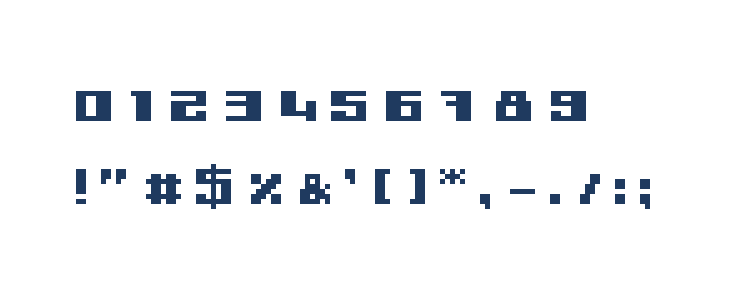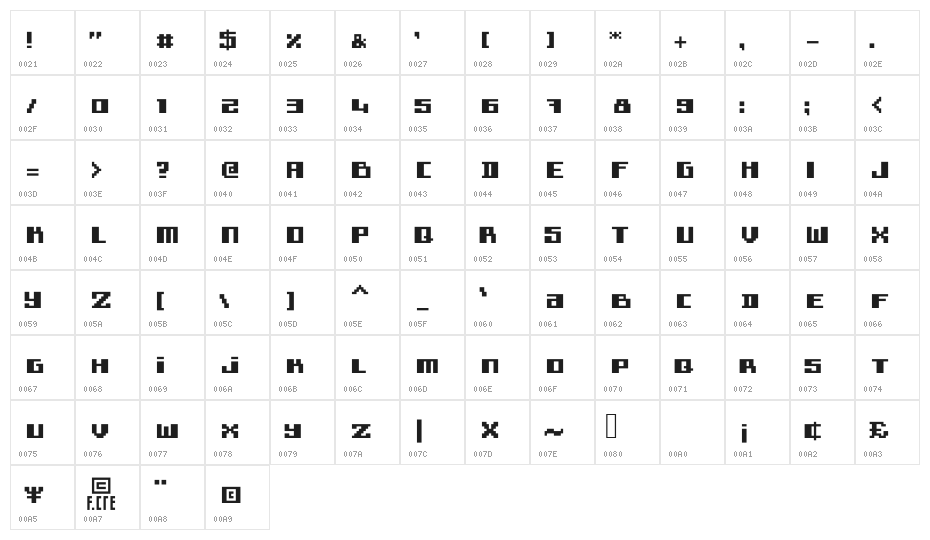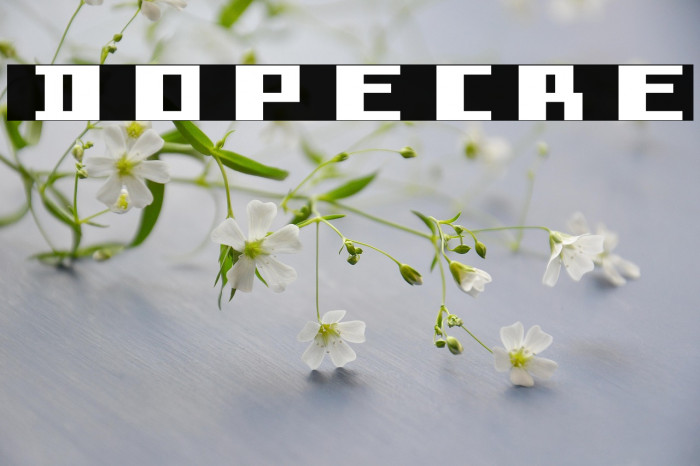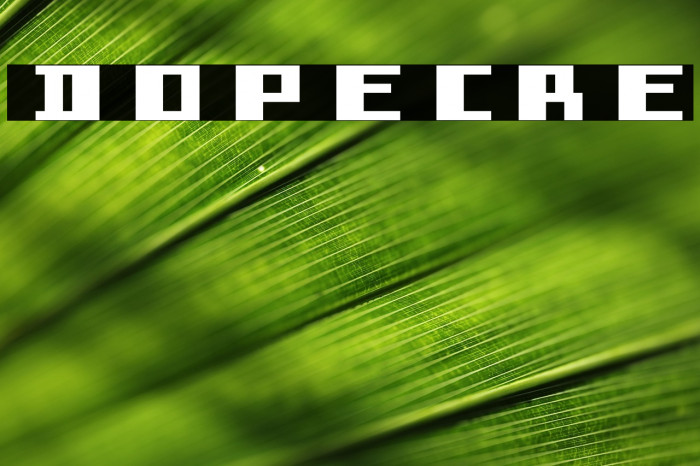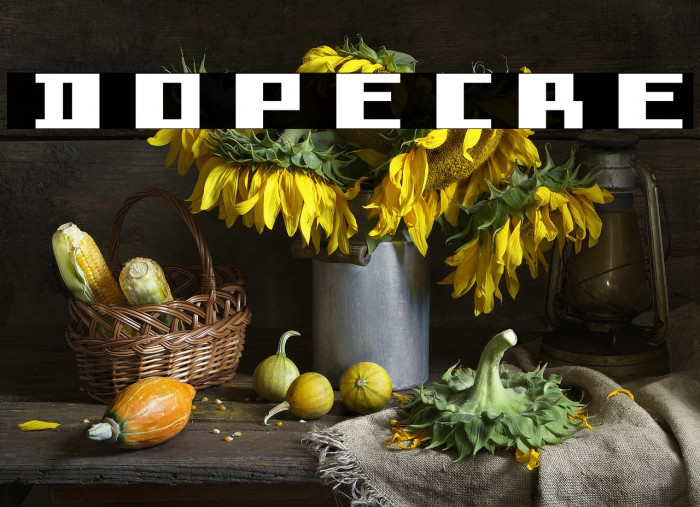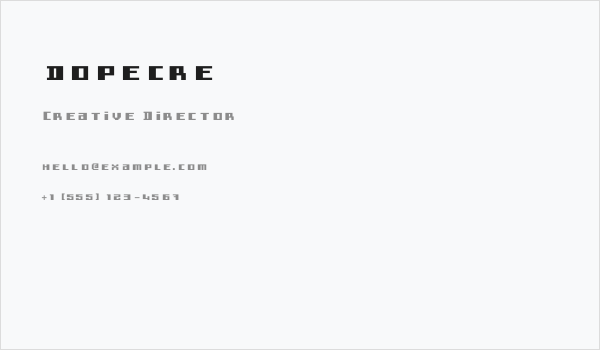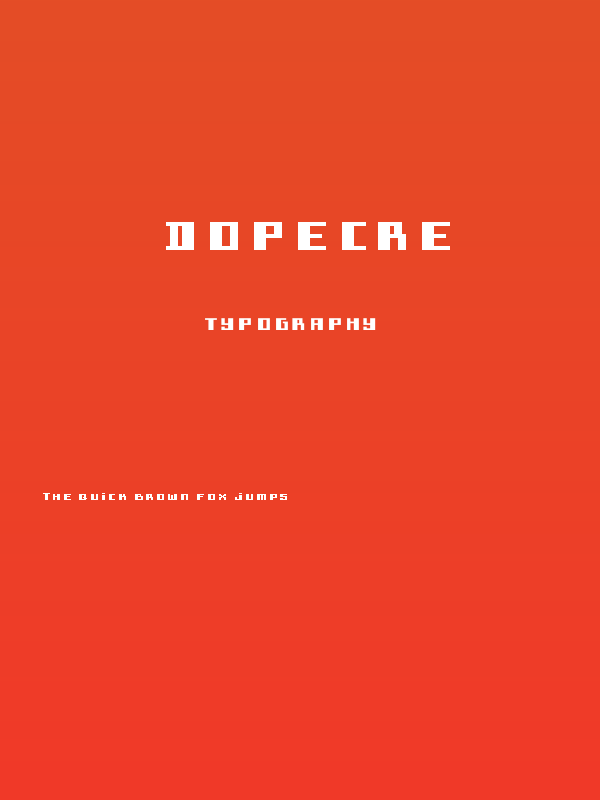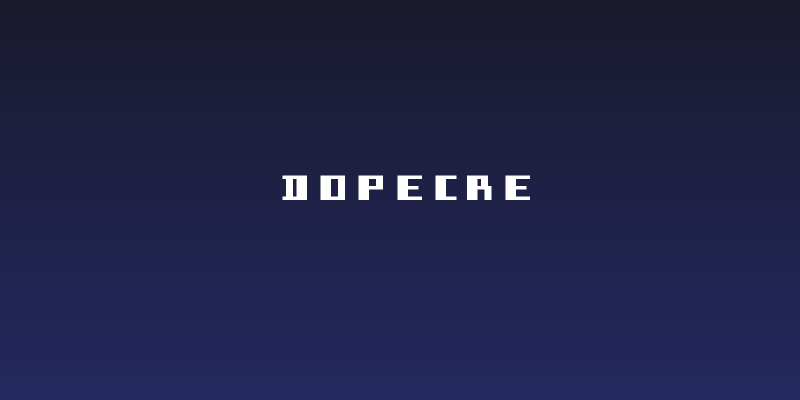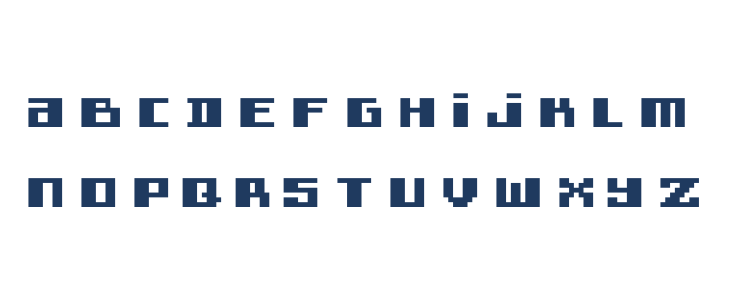
dopecre Font
dopecre Description
This font features a bold, geometric design with a distinctly pixelated appearance, reminiscent of early digital or video game typography. Each character is constructed with sharp, blocky edges, giving it a retro, digital aesthetic. The uniformity in height and width across characters creates a cohesive and structured look, ideal for capturing attention. The font maintains a consistent weight throughout, emphasizing its boldness and making it highly legible even at smaller sizes. Its style is both nostalgic and modern, bridging the gap between classic arcade visuals and contemporary design trends.
| Overall Style | Retro, Digital |
| Proposed Projects | Ideal for video game graphics, retro-themed designs, digital art projects, and tech-related branding. |